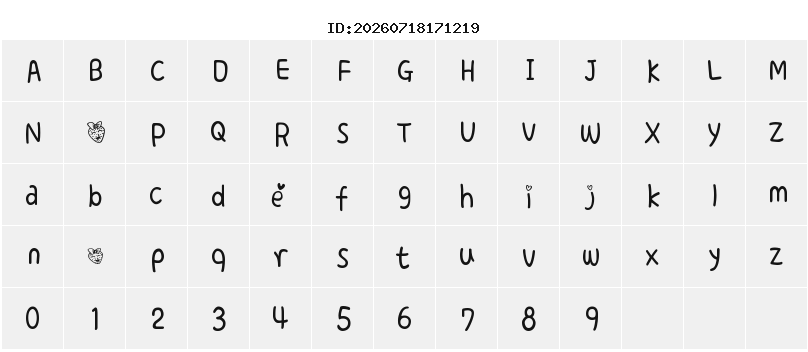
Cute Strawberry2 by UniqueShopaholic Preview
• Font Name: Cute Strawberry2 by UniqueShopaholic
• Full Font Name: Cute Strawberry2 by UniqueShopaholic
About Cute Strawberry2 by UniqueShopaholic.ttf
Cute Strawberry2 by UniqueShopaholic.ttf is a modern, elegant sans-serif font designed for ultimate readability and visual harmony. Perfect for branding, headlines, web design, and print materials.